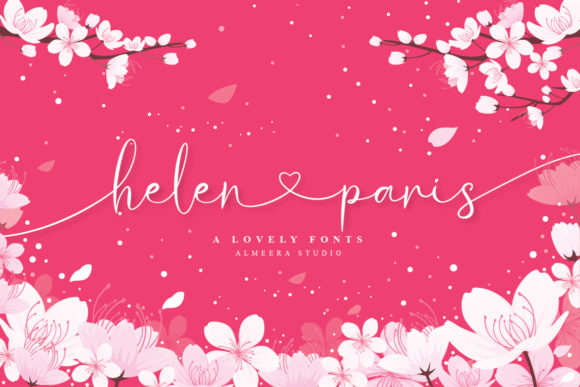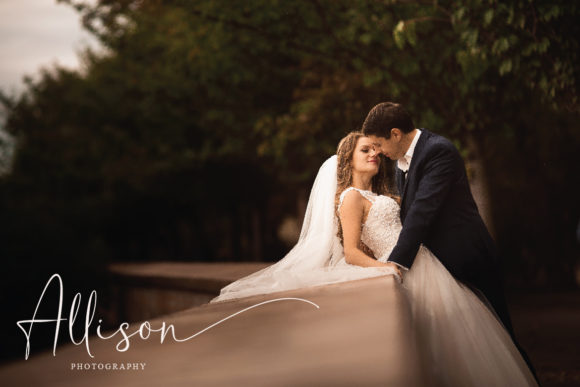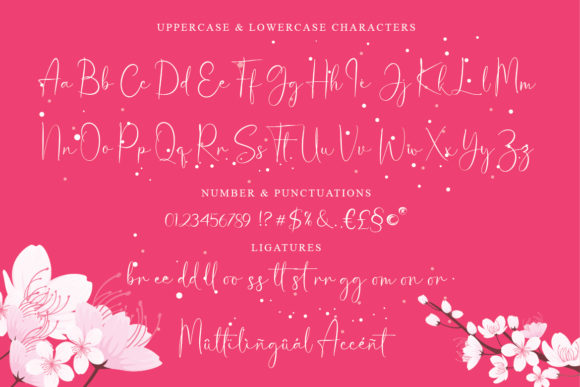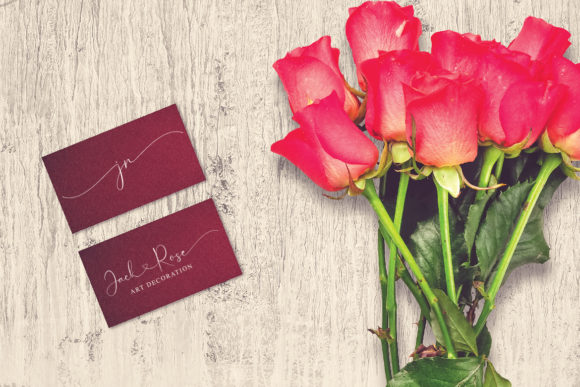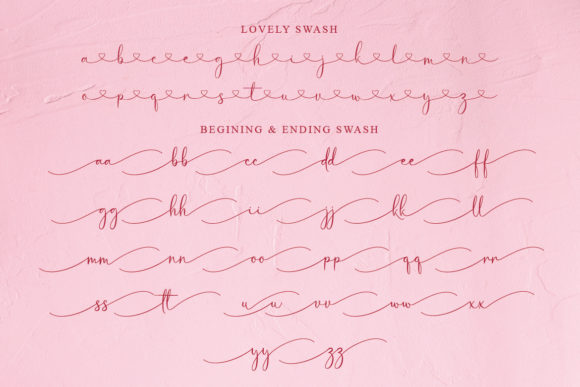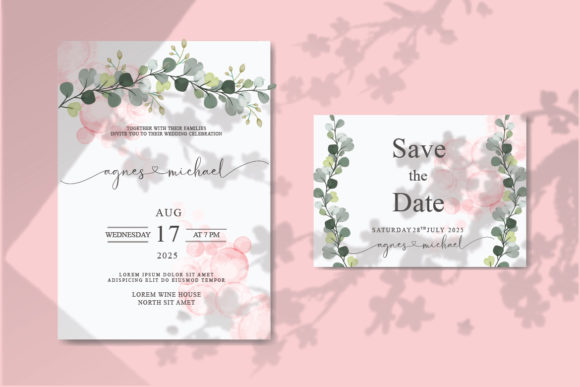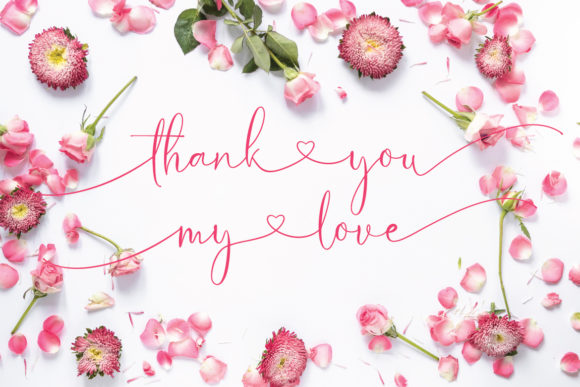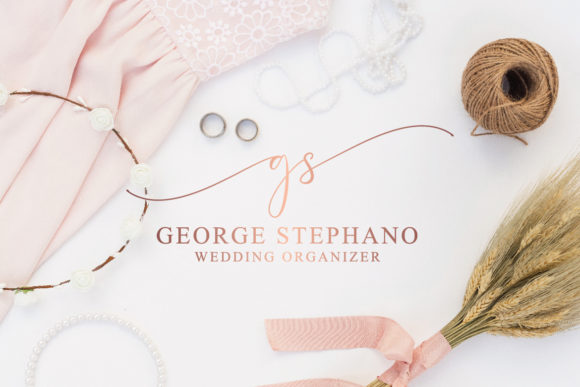
HomeScript FontsHelen Paris Font Script Fonts Helen Paris Font FacebookXPinterestWhatsApp Helen Paris Font Poster 2 Helen Paris Font Poster 3 Helen Paris Font Poster 4 Helen Paris Font Poster 5 Helen Paris Font Poster 6 Helen Paris Font Poster 7 Helen Paris Font Poster 8 About Helen Paris Font Helen Paris is a lovely font that bursts with elegance. Get inspired by its romantic charm and gorgeous swashes! DOWNLOAD ON CREATIVE FABRICAThis font is sold and delivered by Creative Fabrica. Font Canyon may earn a commission if you buy through this link. People also explored Cahilangan Font Walling Love Font Broline Script Charlien Font Malique Font Aprillica Font Wedding Vintage Font Daniella Font Barista Font 355 0 TagsHelen Paris Font Previous articleStanley FontNext articleFroogstones Font LEAVE A REPLY Cancel reply Comment: Please enter your comment! Name:* Please enter your name here Email:* You have entered an incorrect email address! Please enter your email address here Website: Save my name, email, and website in this browser for the next time I comment. Personal Use Free Fifteenth Century Personal Use Free Read more about this font Makcex Personal Use Free Read more about this font Miracles Personal Use Free Read more about this font Shkoder 1989 Personal Use Free Read more about this font BLOG Best Fonts for YouTube Videos: Make Your Thumbnails Stand Out Best Fonts for YouTube Videos: Make Your Thumbnails Stand Out Choosing the right font can make a massive difference in how your YouTube videos perform.... Fonts That Capture the Spirit of New York City 5 Fonts That Will Dominate Design Trends in 2026 Best Fonts for T-Shirt Design – Top 2025 Picks